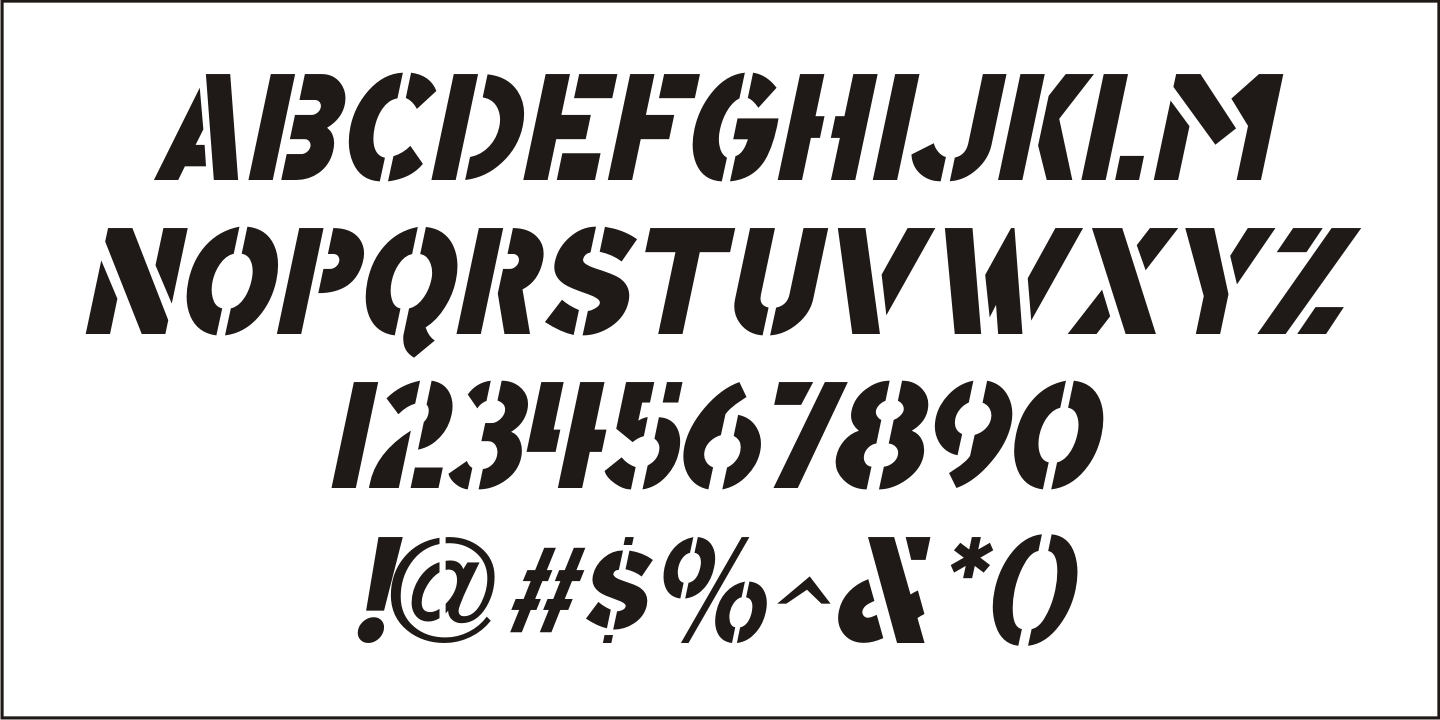
Kiddie Stencil JNL Font is perfect for children's educational materials, playful nursery wall decorations, kids' activity book covers, elementary school signage, toy packaging design, children's art supply branding, daycare center graphics, playground equipment labeling, educational game interfaces, and fun family-friendly marketing campaigns.
What makes Kiddie Stencil JNL Font so exciting is its playful educational charm that perfectly combines the classic appeal of stencil lettering with child-friendly accessibility. This delightful stencil typeface features rounded edges, friendly proportions, and approachable styling that creates an immediate sense of learning fun and creative exploration, making it the ideal choice for brands that want to communicate educational excellence, creative learning, and the joyful discovery that makes childhood education memorable.
The Kiddie Stencil JNL Font family includes regular, bold, outline, and shadow versions, along with educational symbols, playful stencil motifs, learning icons, and child-friendly decorative elements. Each style maintains the font's signature educational character while providing designers with versatile options for creating genuinely engaging communications that make learning feel like play and education feel like adventure.
Whether you're designing for educational institutions or children's product manufacturers, Kiddie Stencil JNL Font Free Download delivers the perfect learning energy needed to communicate educational fun and creative development. The font's carefully crafted letterforms ensure excellent readability for young learners while maintaining its distinctive stencil character that resonates with parents, teachers, and children seeking engaging educational experiences.
This educationally inspired typeface works wonderfully across both traditional classroom materials and modern digital learning platforms. The Kiddie Stencil JNL Font maintains its playful appeal whether stenciled on classroom walls or displayed in interactive learning apps, making it essential for anyone creating educational content that celebrates the joy of childhood learning.
Stencil your way to learning fun with Kiddie Stencil JNL Font and experience typography that teaches with the playful spirit of creative childhood education.